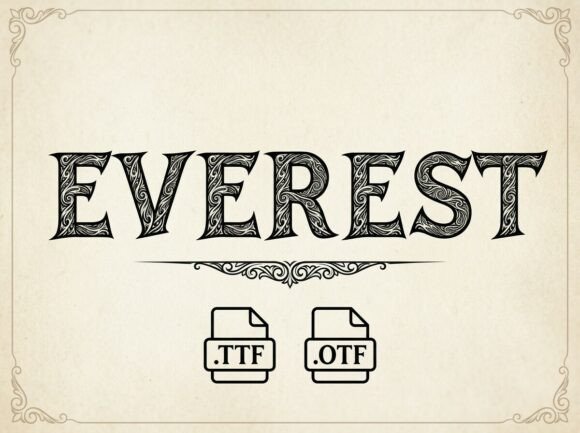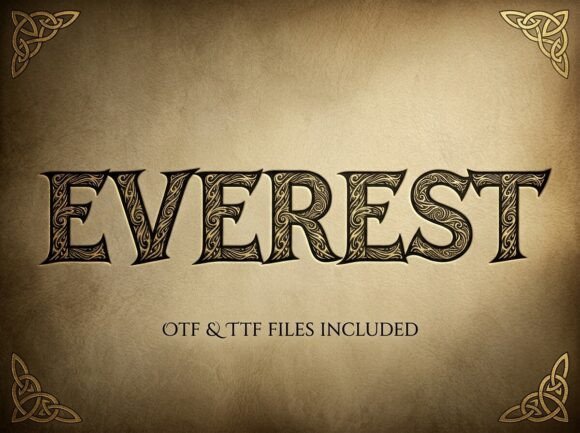
Introducing Everest Font: The Ultimate Decorative Display Font
Are you tired of using the same old fonts for your designs? Look no further than Everest Font, a stunning decorative display font that’s sure to turn heads. With its unique artistic elements and strong visual personality, this font is perfect for creators who want to break away from the ordinary and make a statement.
Everest Font is designed to be the center of attention, making it ideal for bold headlines, artistic logos, and creative packaging. Its versatility ensures that it can be used across various design projects, from branding and advertising to packaging and editorial design. Whether you’re a graphic designer, crafty DIY enthusiast, or online business owner, this font is sure to elevate your designs to the next level.
What to Expect from Everest Font
Important Note: All-Caps Display Typeface
⚠️ IMPORTANT NOTE BEFORE PURCHASE: Everest Font is an ALL-CAPS (Uppercase Only) display typeface. This means that it does not include lowercase letters. It’s specifically designed for high-impact headlines, logos, and decorative initials where every letter is a work of art. So, make sure to take this into consideration before making your purchase.
Use Cases for Everest Font
Everest Font is perfect for a variety of design projects, including:
- Headlines and Titles: Use Everest Font to create bold, eye-catching headlines that grab attention and make a statement.
- Logos and Branding: Create a unique and memorable logo for your business or brand with this stunning font.
- Packaging Design: Add a touch of elegance and sophistication to your packaging designs with Everest Font.
- Editorial Design: Use the font to create visually appealing editorial designs, such as magazine covers, article titles, and more.
Why Choose Everest Font?
So, why choose Everest Font over other decorative display fonts? Here are just a few reasons:
- Unique and Artistic: Everest Font features unique artistic elements that set it apart from other fonts.
- Professional and Polished: Despite its decorative nature, the font maintains a professional and polished finish, making it suitable for a wide range of design projects.
- Versatile: Use Everest Font across various design projects, from branding and advertising to packaging and editorial design.
Everest Font is a stunning decorative display font that’s sure to elevate your designs to the next level. With its unique artistic elements, strong visual personality, and versatility, it’s perfect for creators who want to break away from the ordinary and make a statement. So, if you’re looking for a font that demands attention and adds a touch of elegance to your designs, look no further than Everest Font.